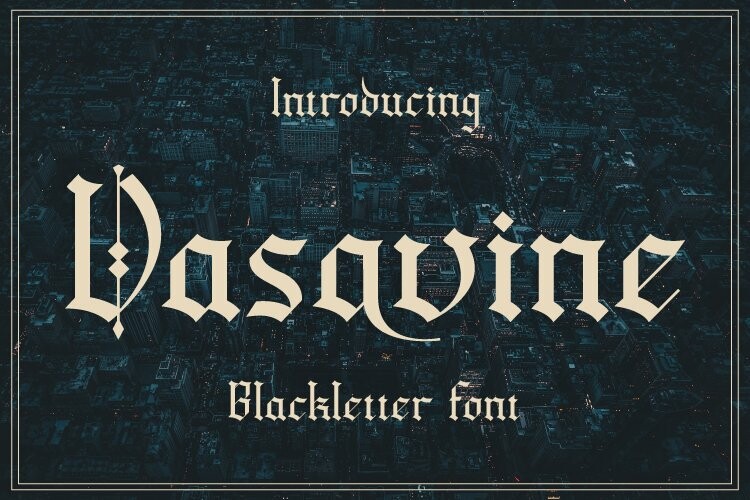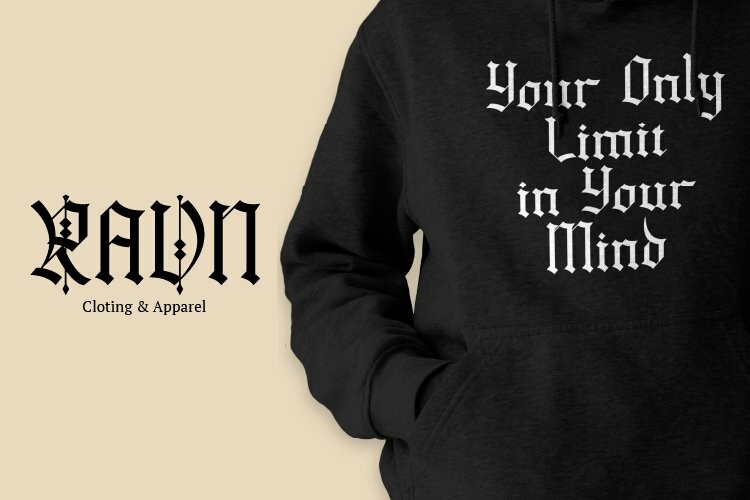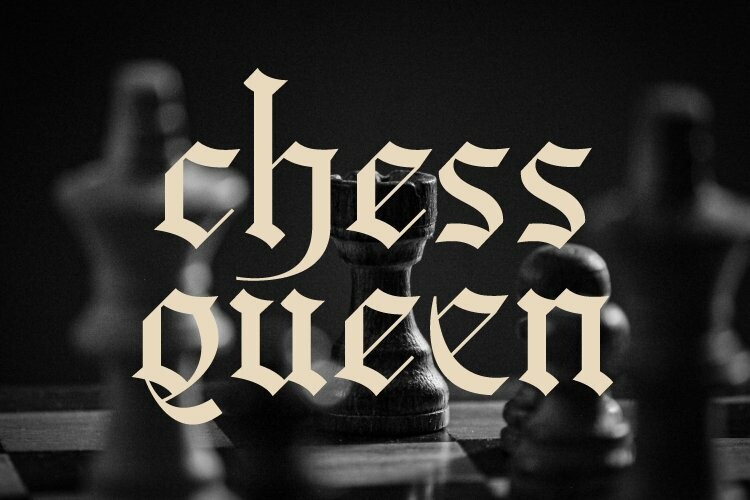
Vasavine Font
Vasavine FontVasavine is a Blackletter font. Its elegant and cool look makes it the perfect choice for logos, branding, invitations, stationery, wedding designs, social media posts, and so much more.